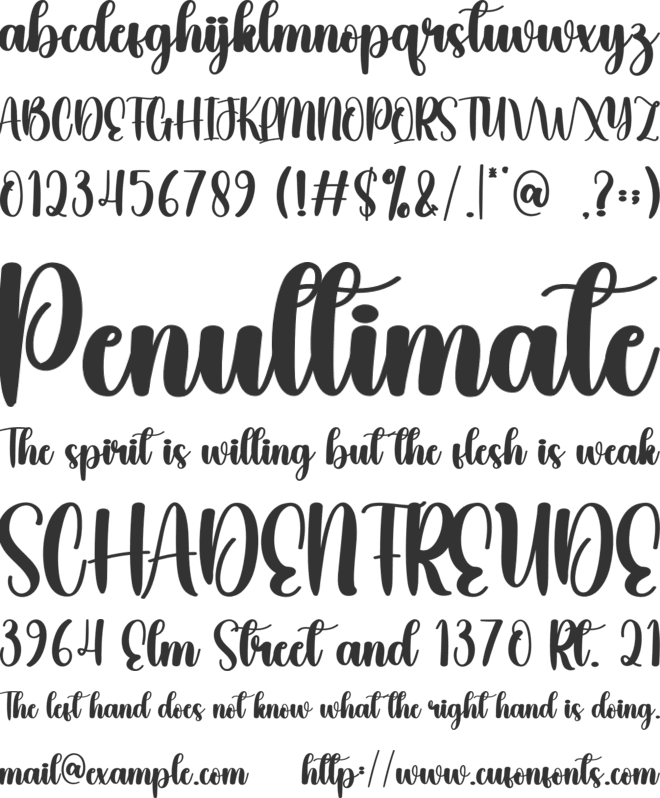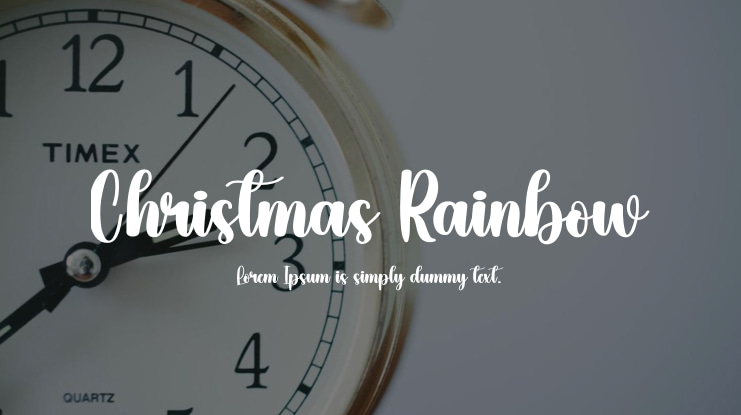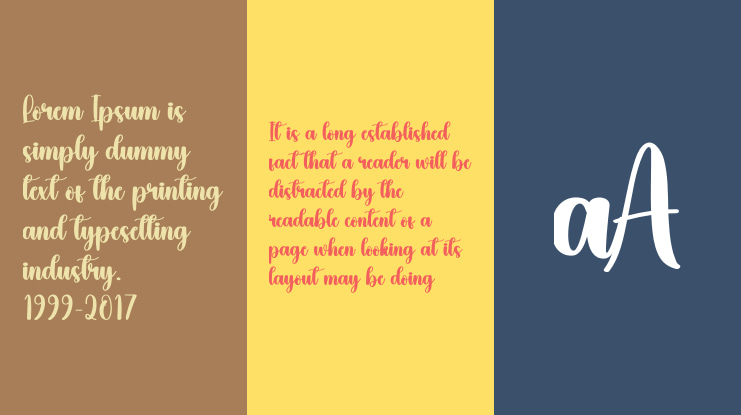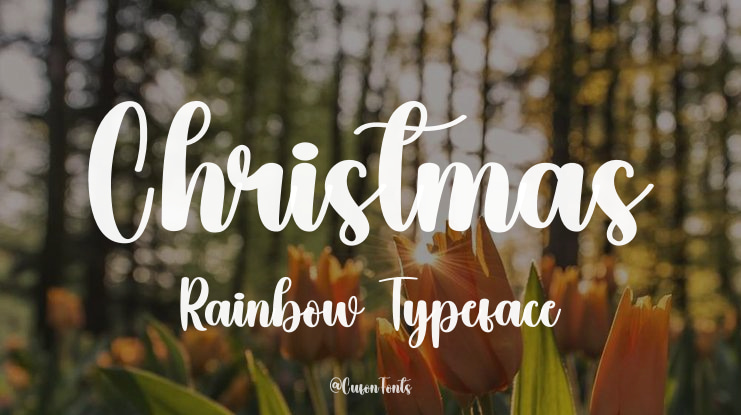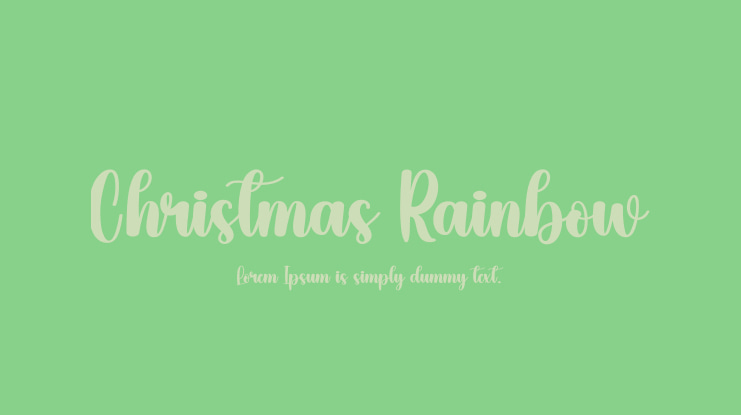
Christmas Rainbow Font
We offer specially crafted products designed to provide you with an extraordinary experience. Our latest styled letters are perfect for a variety of projects including wall displays, wedding invitations, social media posts, logos, advertisements, product packaging, designs, labels, photography, watermarks, and stationery—ideal for any project requiring tasteful handwriting.